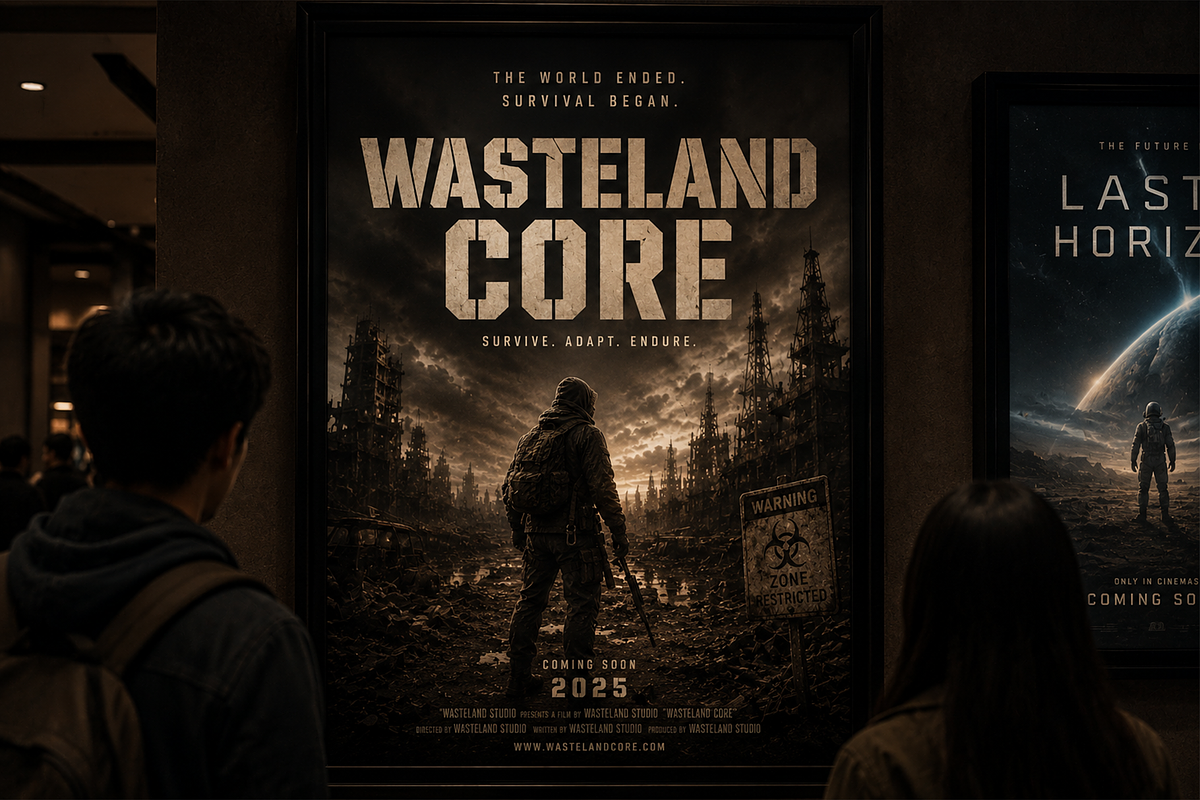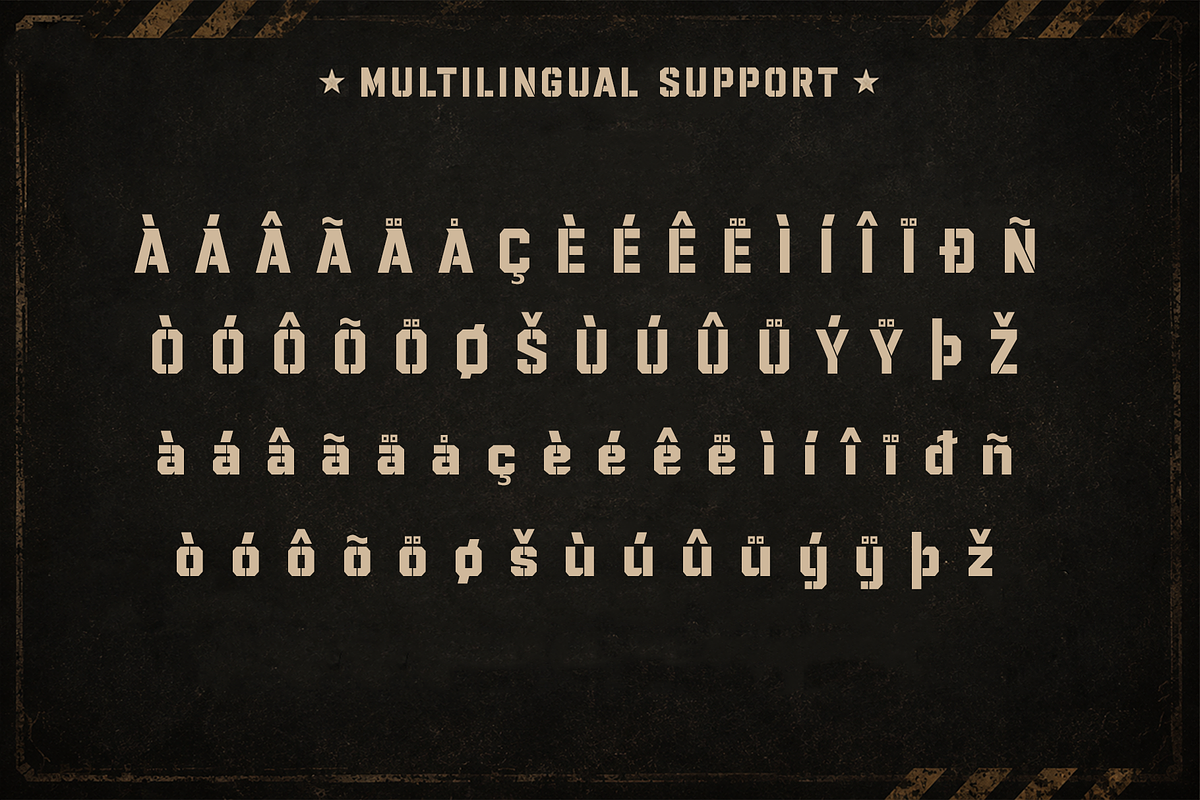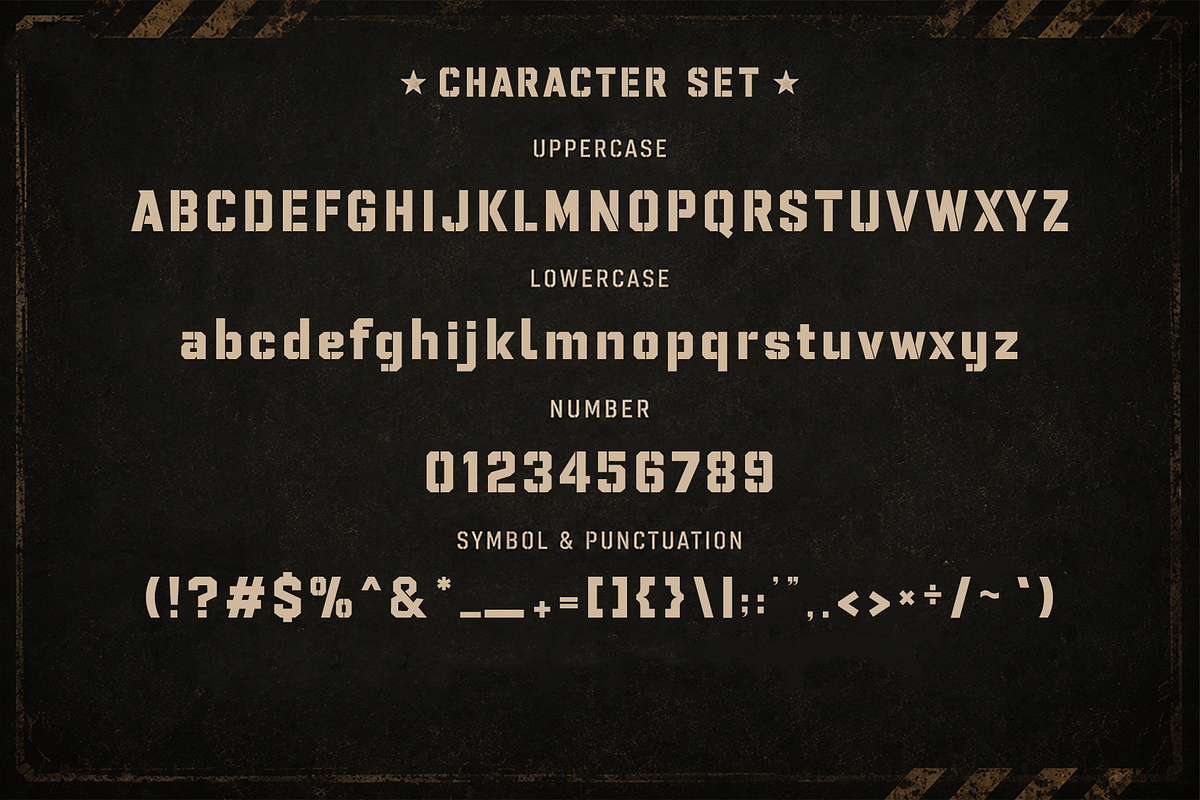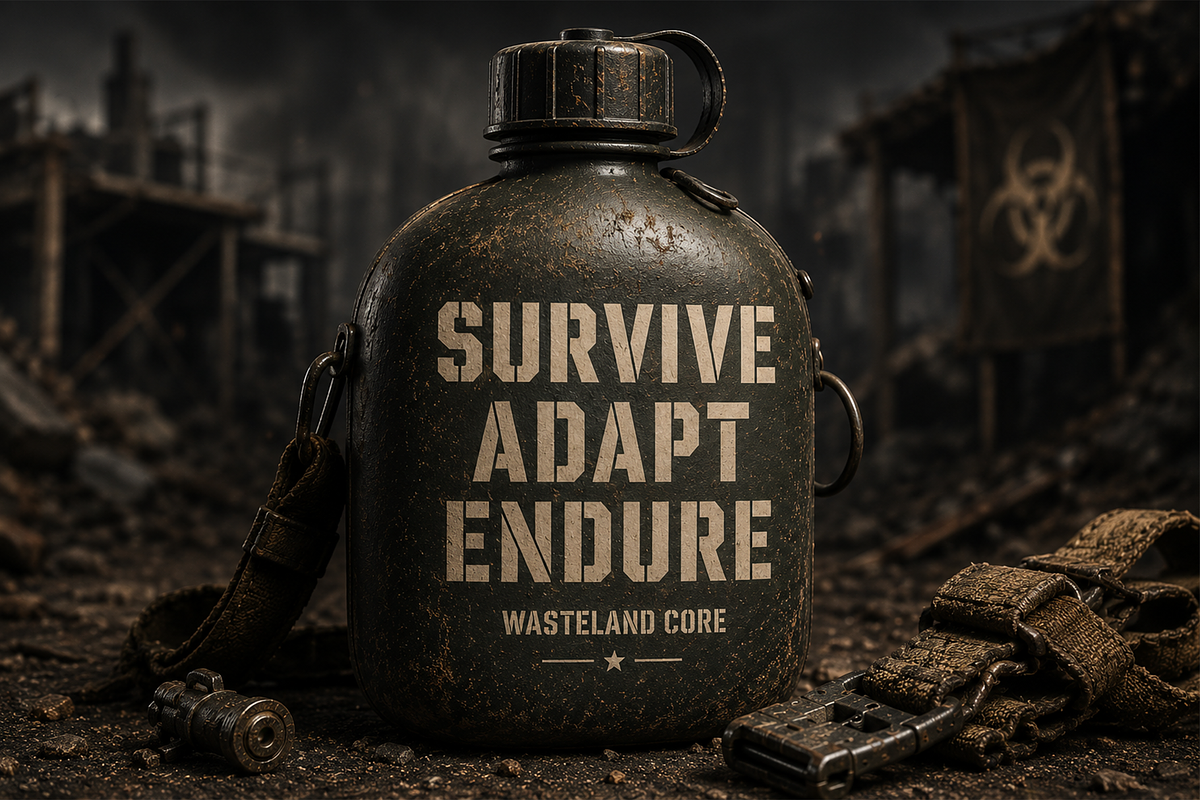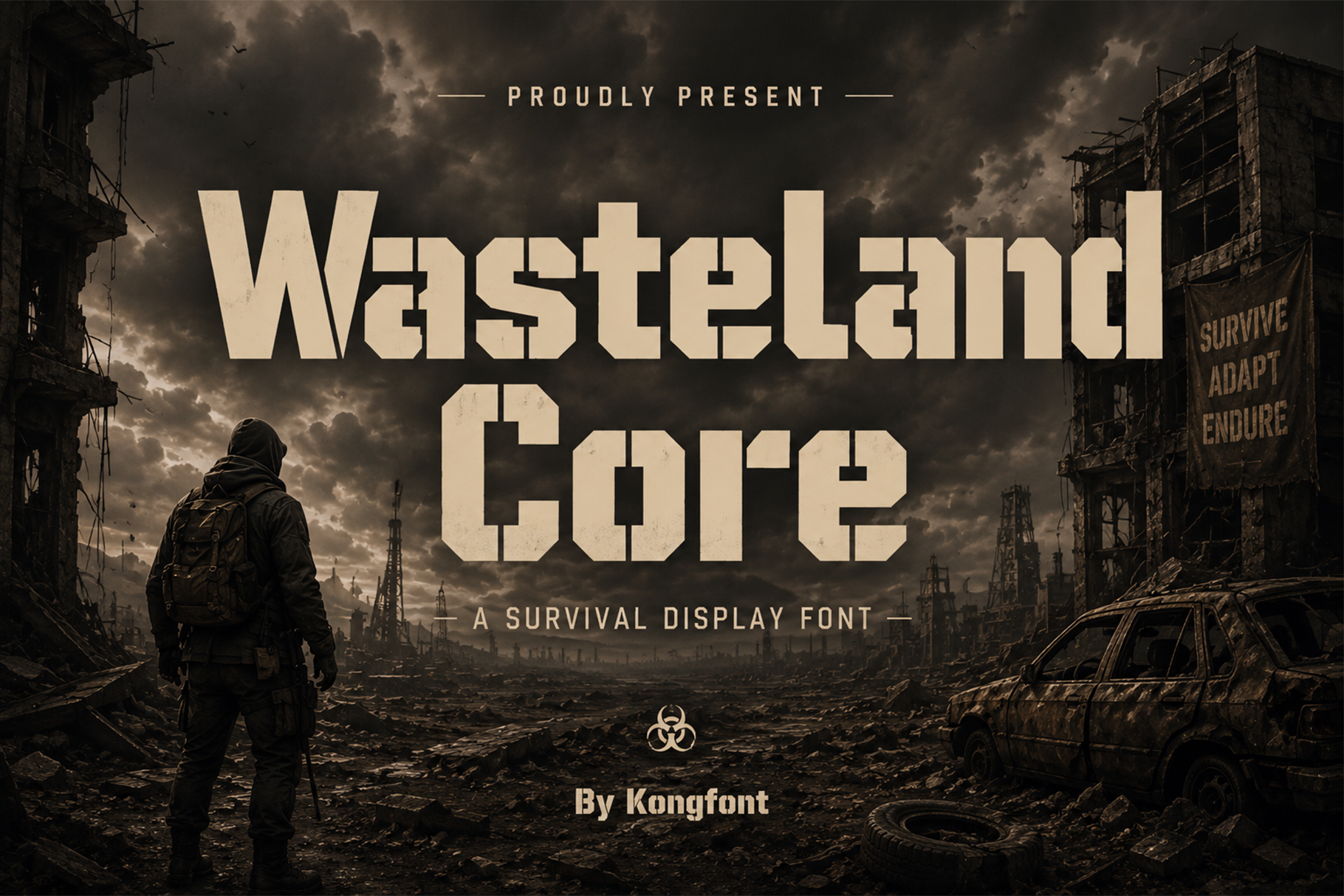
Wasteland Core - Display Font
Wasteland Core - Survival Display Font
Meet Wasteland Core, a rugged survival display font inspired by post apocalyptic worlds, abandoned cities, and the resilience of humanity. Featuring bold industrial letterforms, sharp geometric cuts, and weathered details, this typeface embodies the harsh atmosphere of dystopian landscapes where strength and endurance are the keys to survival. Its commanding presence makes every headline feel powerful, gritty, and unforgettable.
Expertly crafted for high impact designs, Wasteland Core is perfect for survival games, post apocalyptic movie posters, military branding, tactical gear, zombie themed content, YouTube thumbnails, streaming graphics, scifi projects, esports logos, book covers, apparel, merchandise, and action packed promotional materials. Its industrial inspired construction ensures excellent readability while delivering a bold, cinematic aesthetic across both print and digital media.